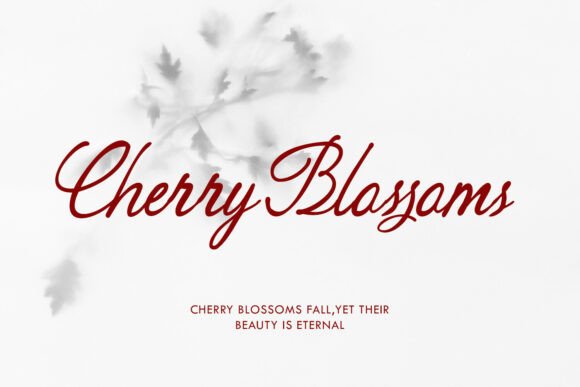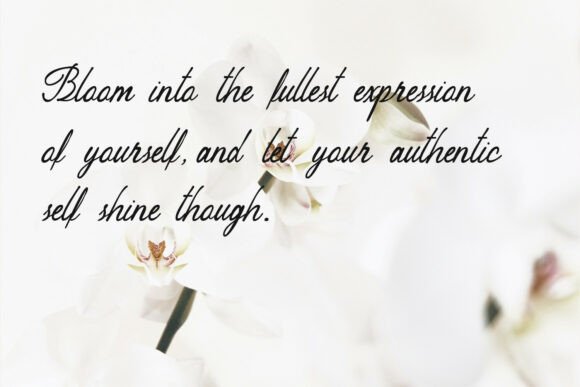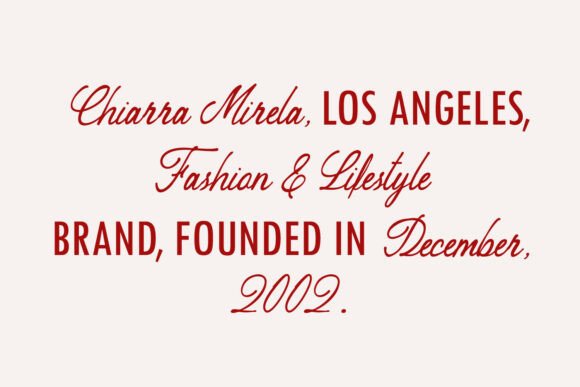
Introduction to Peuttya Deffunte Font
Peuttya Deffunte is a script typeface designed to bring an air of effortless elegance and timeless class to your creative projects.
Crafted by Maulana Creative, this font features flowing, organic strokes and a balanced slant that mimics high end calligraphy With its comprehensive set of uppercase and lowercase characters, stylish ligatures, and clean numerals, it is the perfect choice for luxury branding, wedding invitations, fashion editorials, and signature logos.